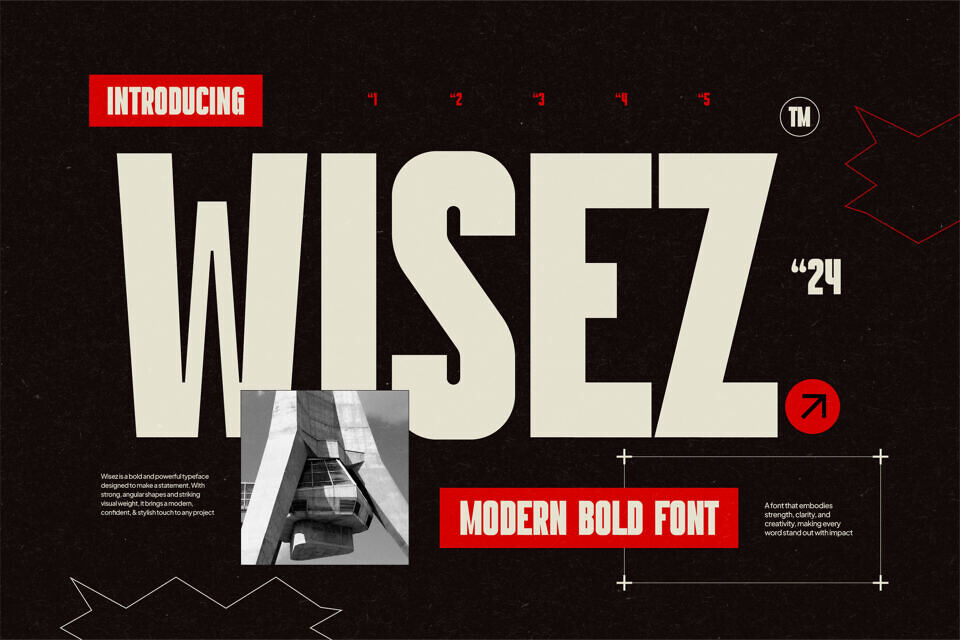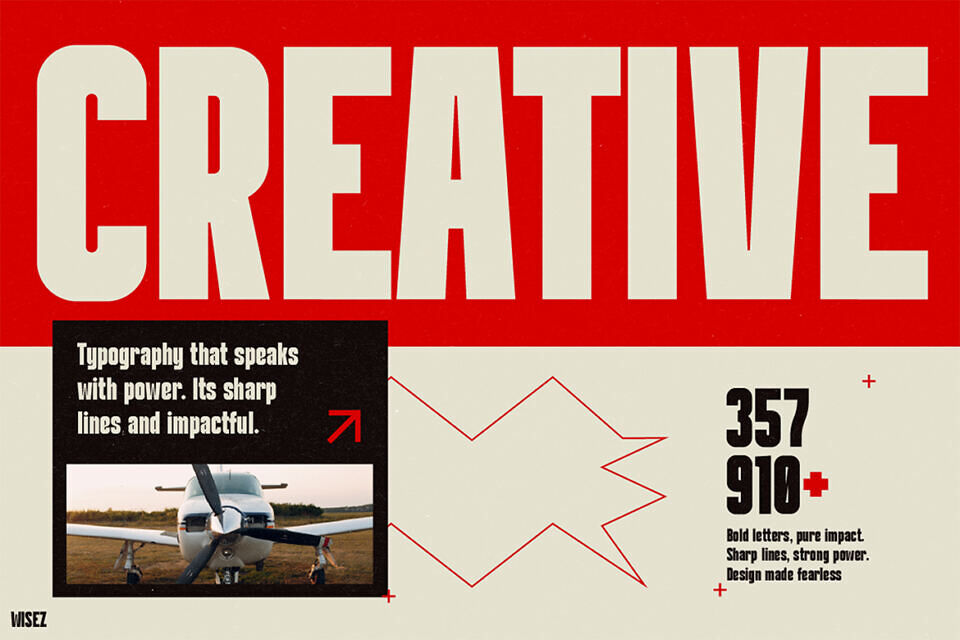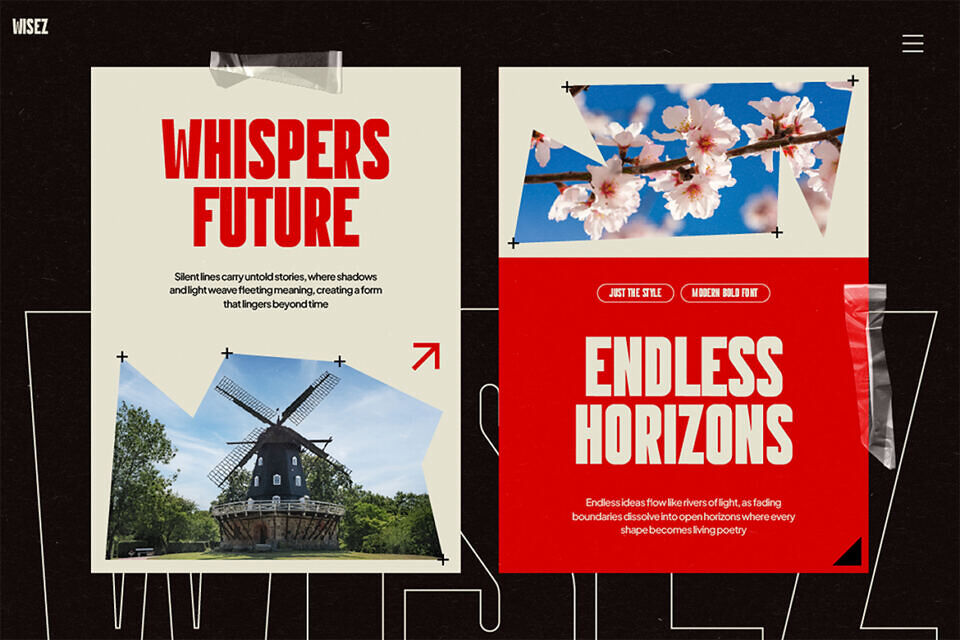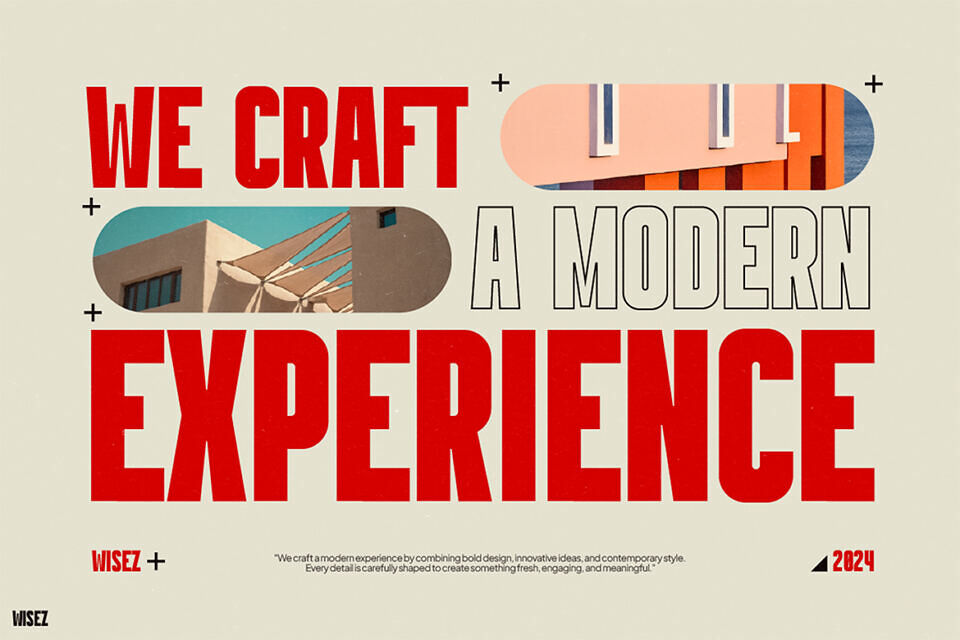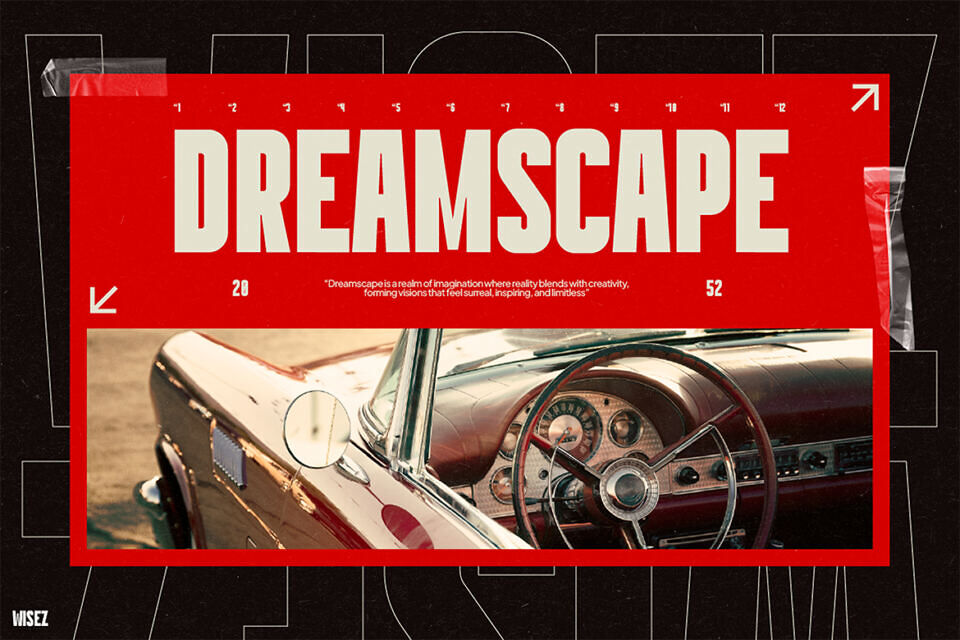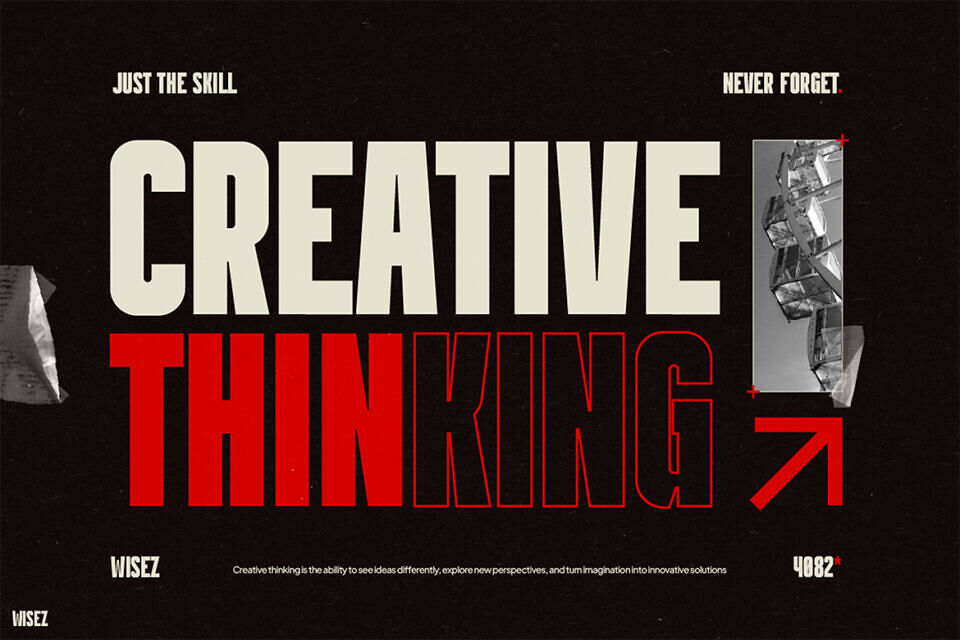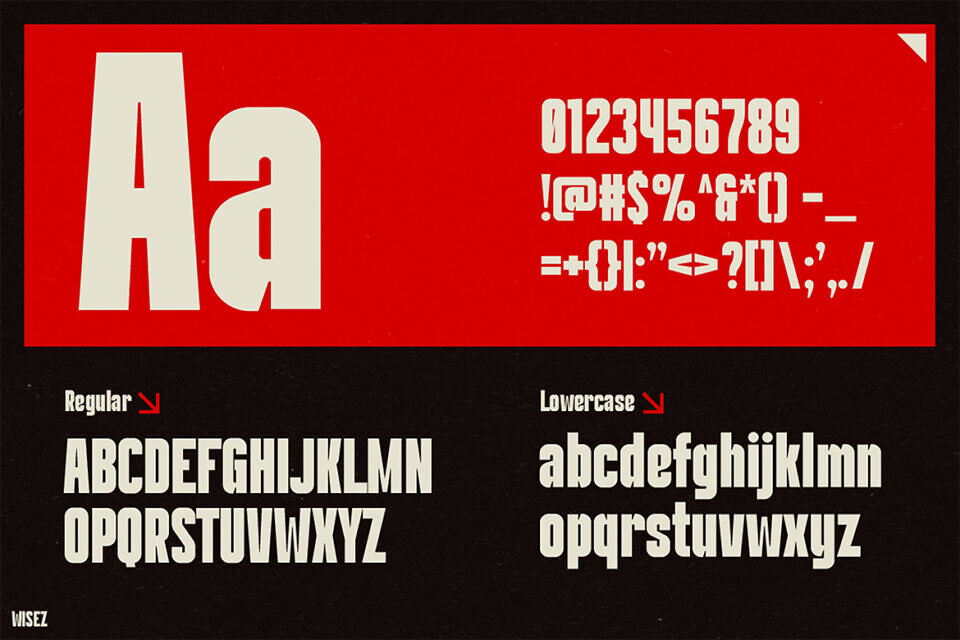
WISEZ is more than just a typeface—it’s a bold declaration of creativity and style. Designed with sharp edges, strong curves, and daring proportions, this modern bold font turns every word into a statement.
Moreover, its unique aesthetic lies in the balance between power and elegance, making it an essential tool for anyone who wants their designs to feel confident, contemporary, and impossible to ignore.